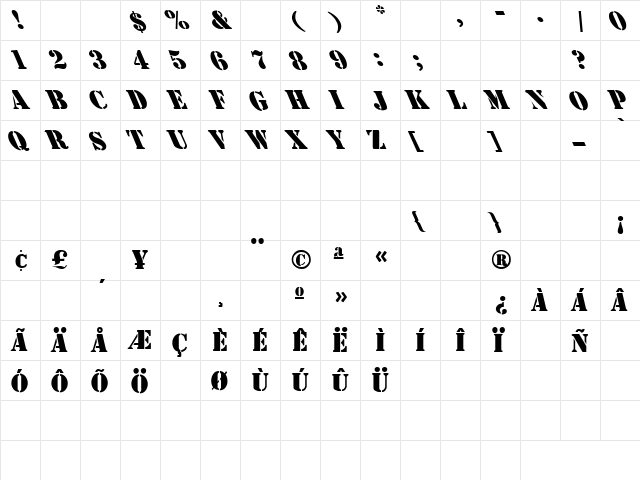
Sunglasses 1 Regular
Sunglasses 1 is a composed and adaptable typeface that performs quietly and consistently across a wide range of design contexts.